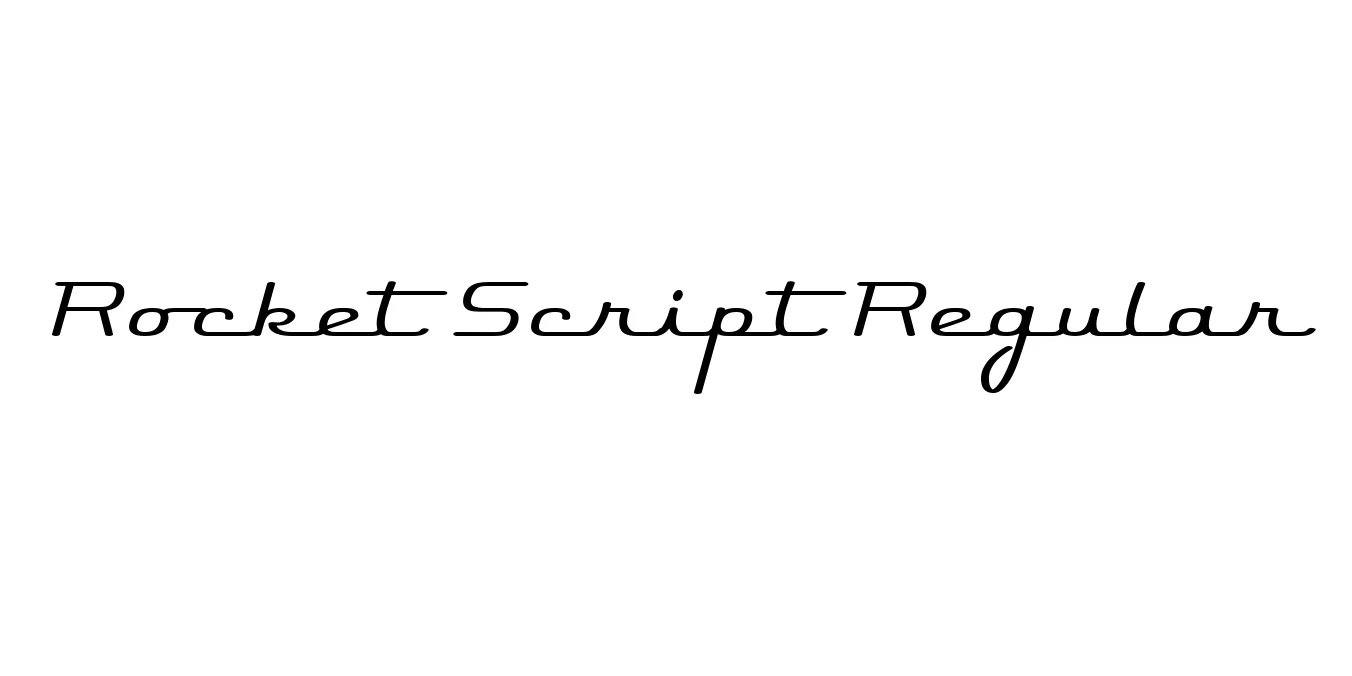
Rocket Script Regular
Designed by Jonathan Hill (The Northern Block)
Rocket Script Regular is a vibrant and energetic brush script font that draws deep inspiration from the iconic hand-painted signage of the 1940s and 1950s. Designed by Jonathan Hill, this typeface captures the essence of post-war Americana, blending nostalgic charm with a modern, clean execution. Its fluid strokes and varying weights evoke a sense of speed and movement, making it a standout choice for projects that require a touch of vintage flair without looking dated or overly cluttered.
The font is characterized by its organic flow and rhythmic letterforms, which provide a high degree of legibility for a script face. Over the years, Rocket Script has become a favorite among graphic designers for branding and advertising, particularly in the automotive, diner, and apparel industries. Whether used for a retro-themed logo or a high-impact headline, Rocket Script Regular delivers a professional yet handcrafted aesthetic that remains timelessly cool in the digital age.
Rocket Script Regular Best Uses
Creating distinctive retro logos and identity systems.
Perfect for t-shirt graphics and vintage-style sports patches.
High-visibility retail signage and window displays.
Dynamic headlines for posters and social media marketing.